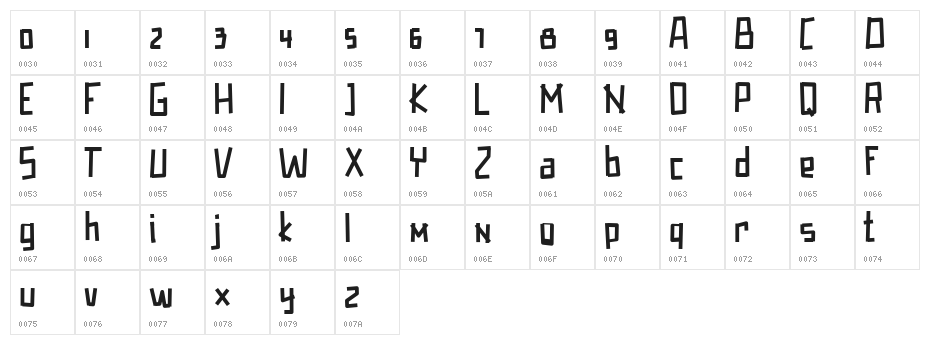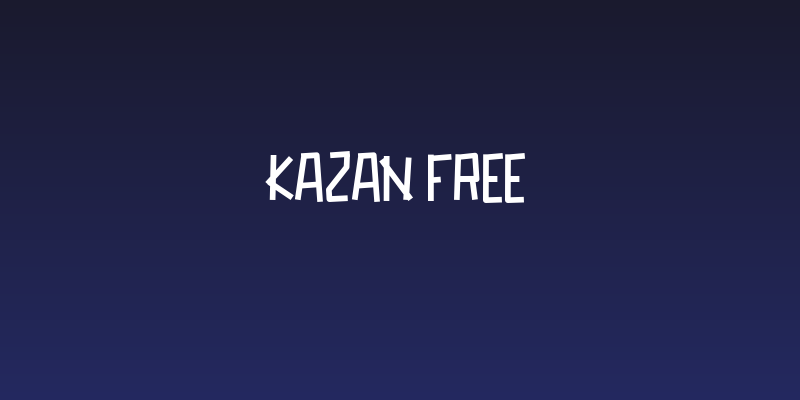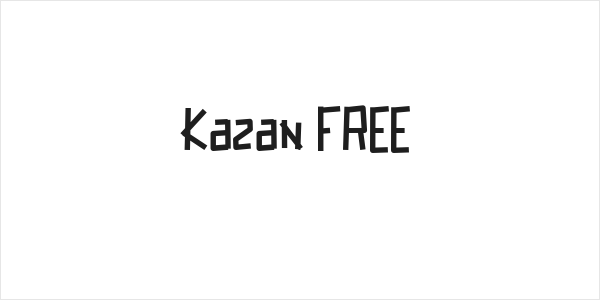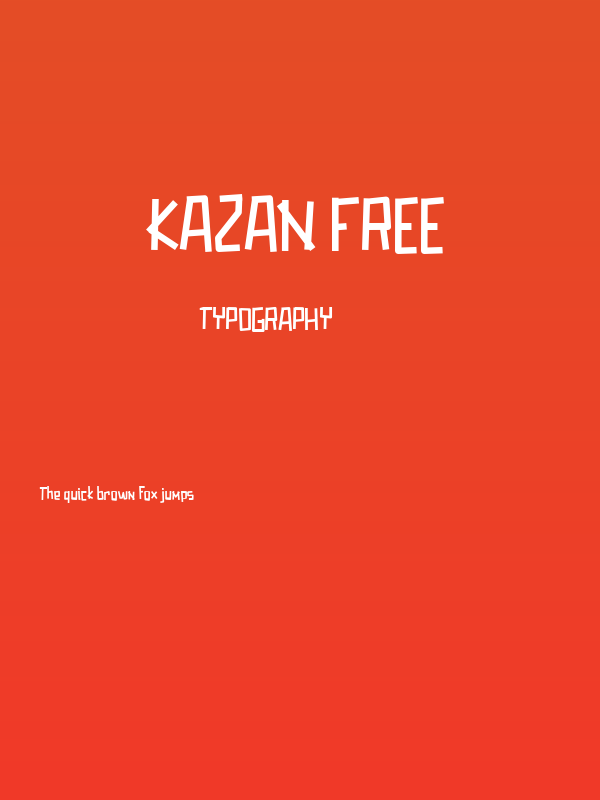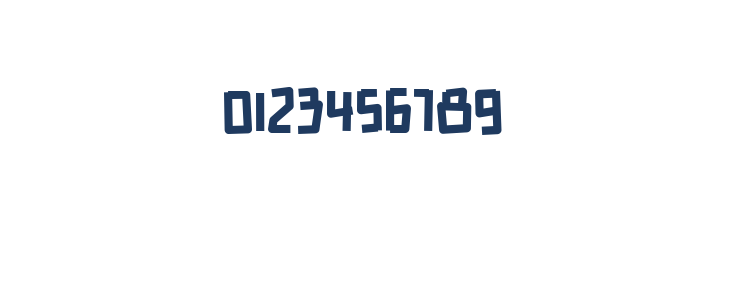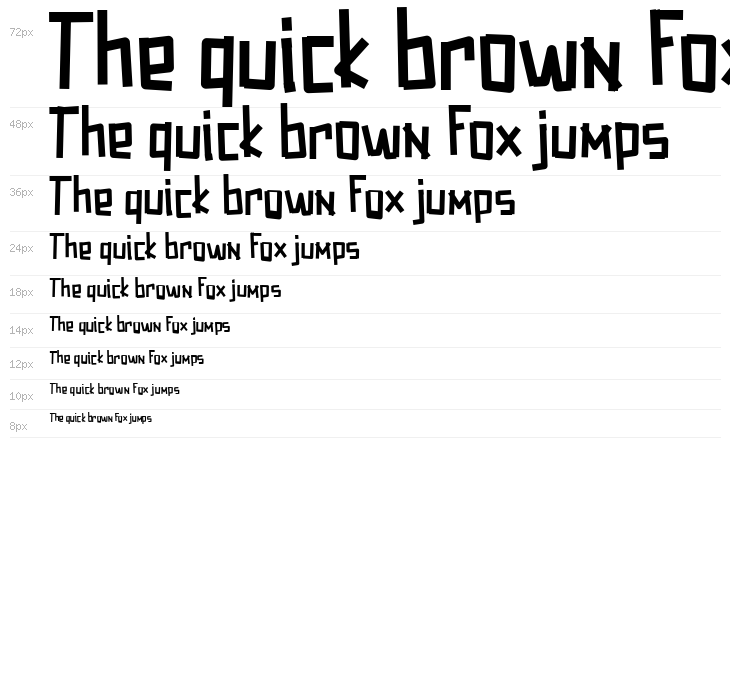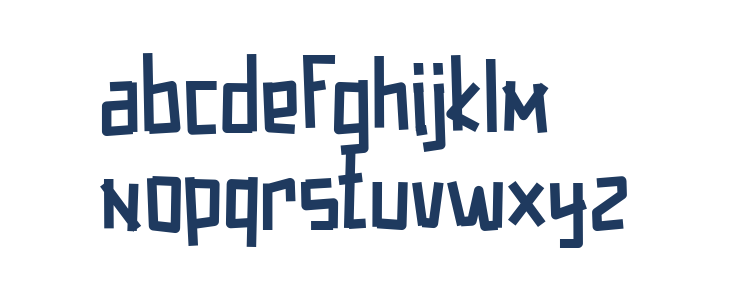
Kazan FREE Font
Kazan FREE Description
This font features a bold, geometric design with a distinctly hand-drawn aesthetic. The characters are angular and slightly irregular, giving them a unique, edgy appearance. The uppercase and lowercase letters maintain a consistent style, with sharp edges and a playful, informal vibe. The numbers and special characters follow the same design principles, ensuring a cohesive look across all elements. The font's boldness and distinctive style make it stand out, suitable for projects that require a strong visual impact.
| Overall Style | Modern, Artistic |
| Proposed Projects | Ideal for posters, album covers, branding, and any project needing a bold, artistic touch. |